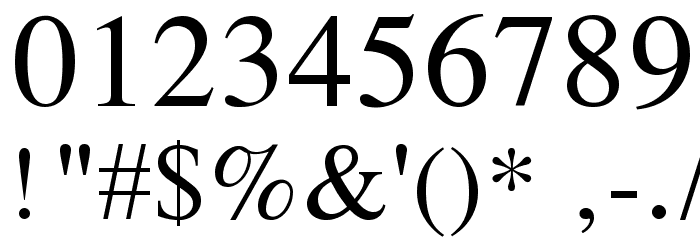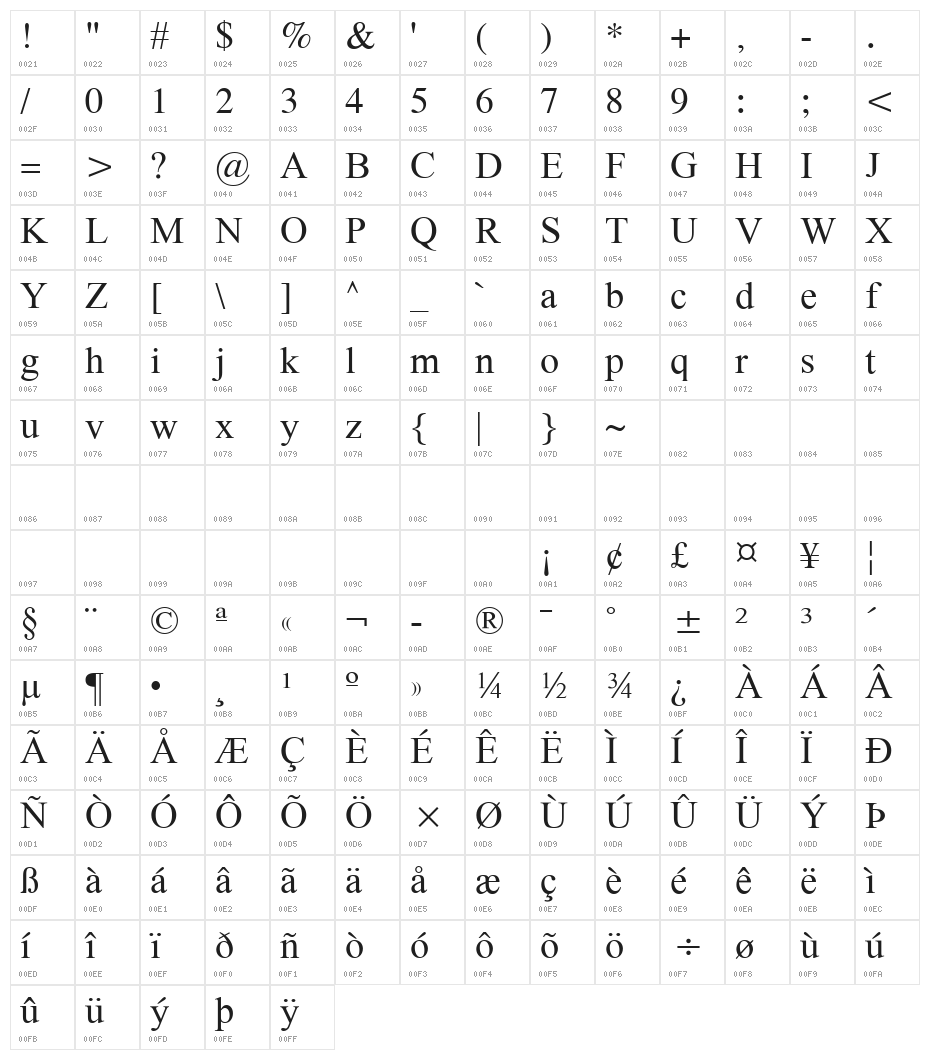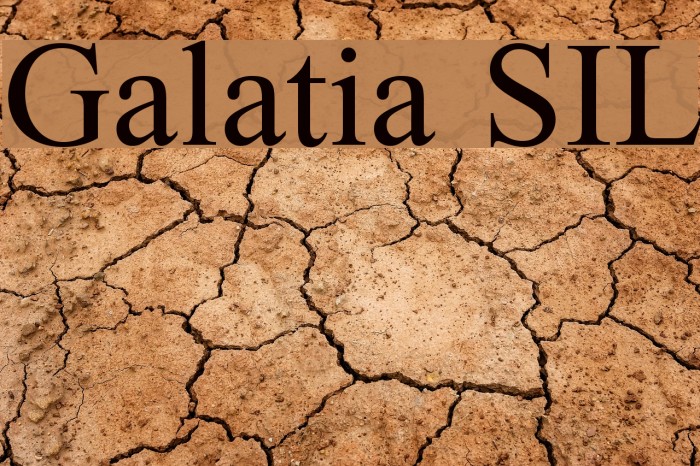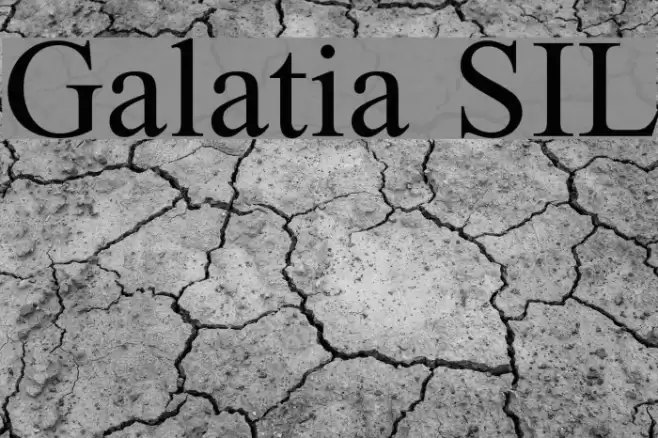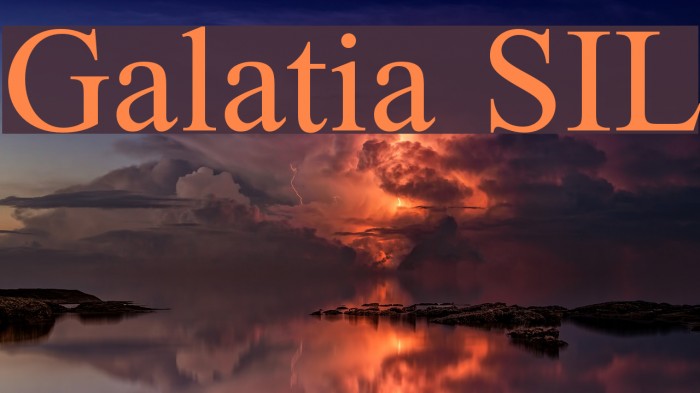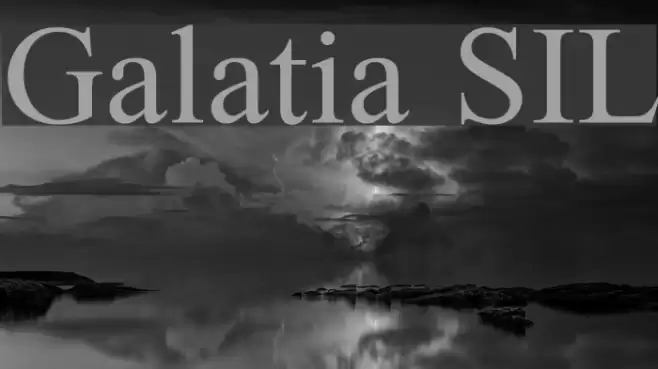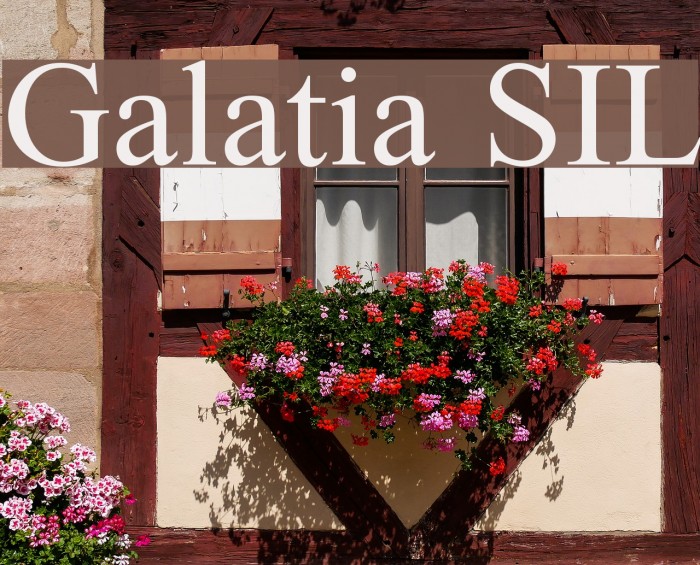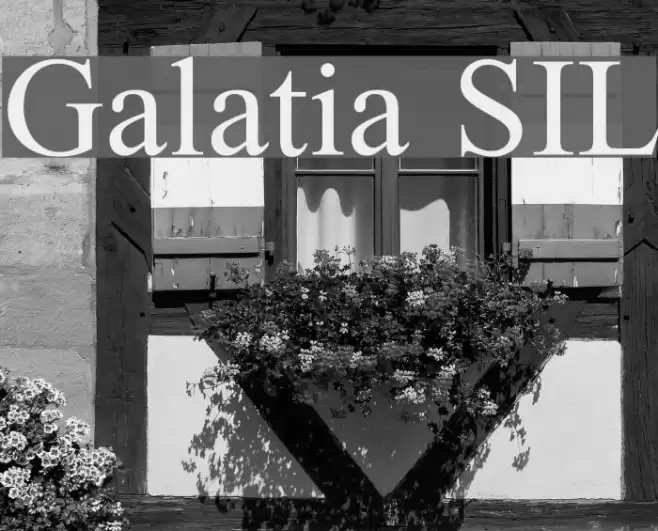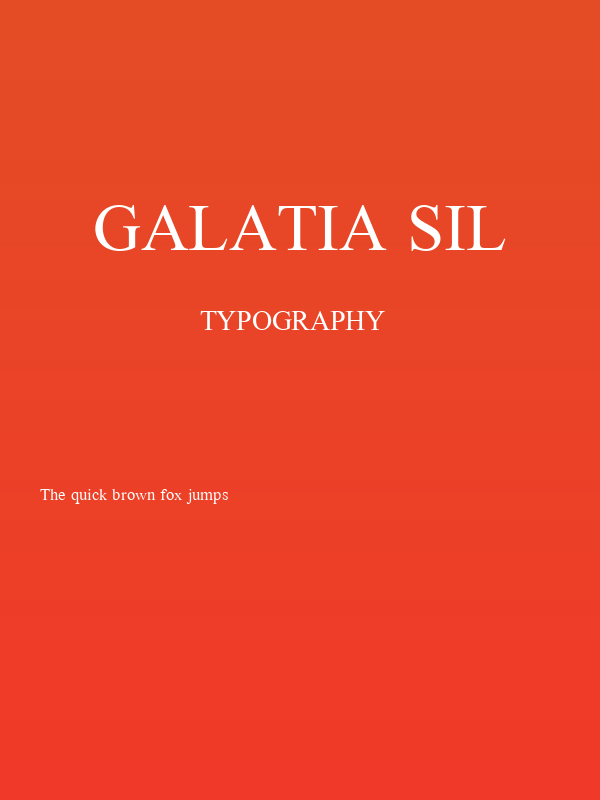
Galatia SIL Font
Galatia SIL Description
This font features a classic serif style with elegant and refined strokes. The uppercase letters are bold and commanding, while the lowercase letters maintain a balanced and harmonious appearance. The numerals are clear and distinct, making them easily readable. Special characters are well-integrated, maintaining the overall aesthetic of the font. The design is versatile, suitable for both formal and creative applications, offering a timeless appeal that can enhance various projects.
| Proposed Projects | Ideal for book covers, editorial design, formal invitations, and branding materials. |